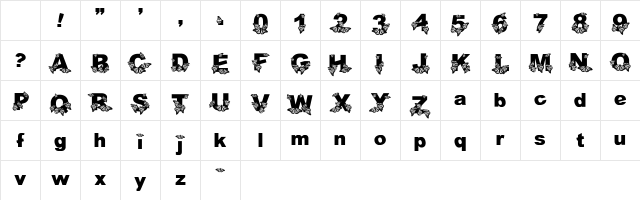
WL Royal Flutter is a composed and adaptable typeface that performs quietly and consistently across a wide range of design contexts. Its bold stroke weight gives it real presence on the page.
Pro Tip: Use WL Royal Flutter in both headline and body roles to test its range before committing to a single application.